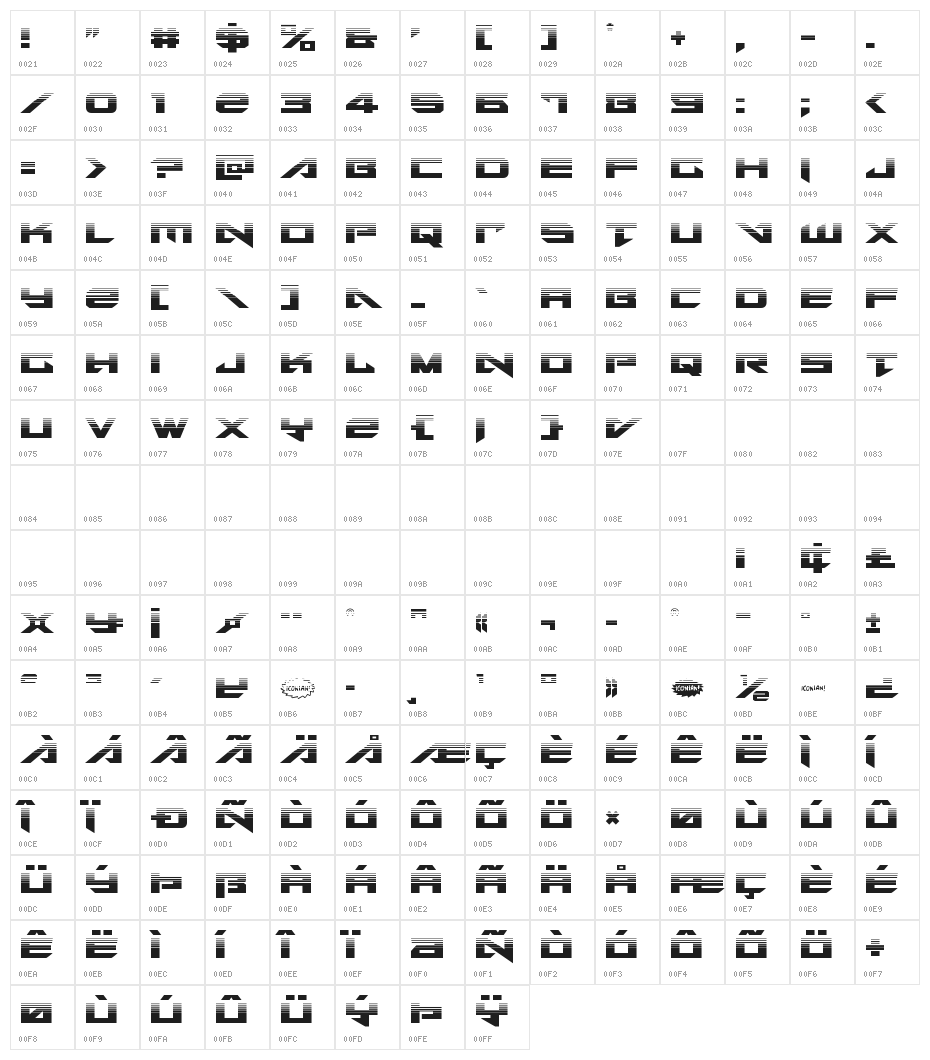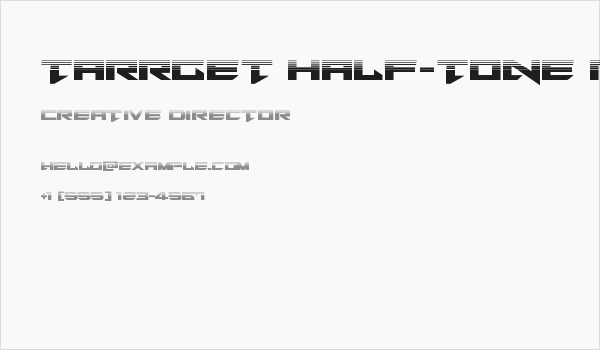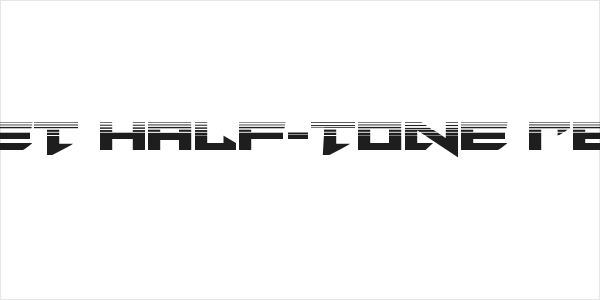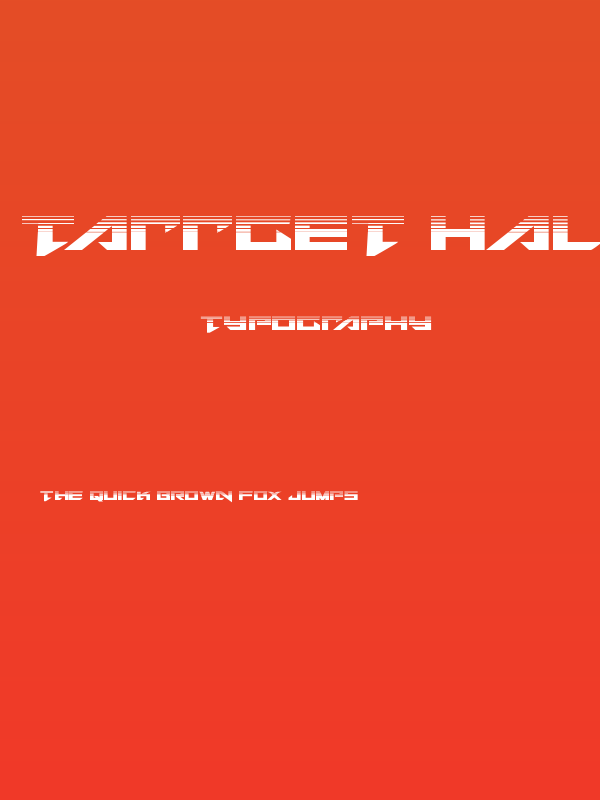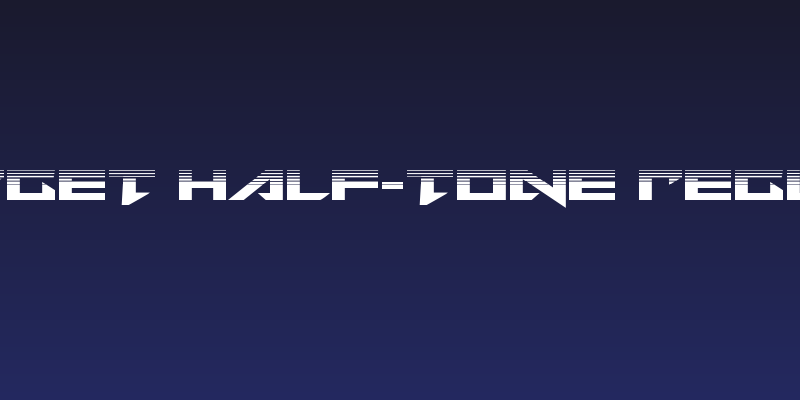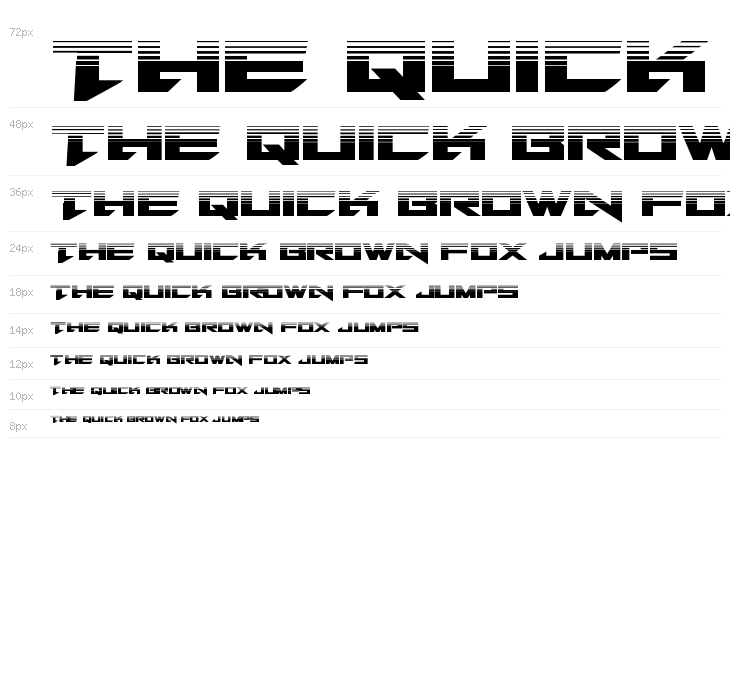
Tarrget Half-Tone Regular Font
Tarrget Half-Tone Regular Description
This font features a bold, futuristic design with a strong geometric structure. The characters are composed of thick, angular lines with a distinctive half-tone pattern that gives them a dynamic, high-tech appearance. The uppercase letters are particularly striking, with sharp edges and a sense of movement. The numerals and special characters maintain this aesthetic, ensuring consistency across all glyphs. The font's unique style makes it ideal for projects that require a modern, edgy look.
| Proposed Projects | Ideal for sci-fi themed designs, technology branding, video game titles, and futuristic posters. |